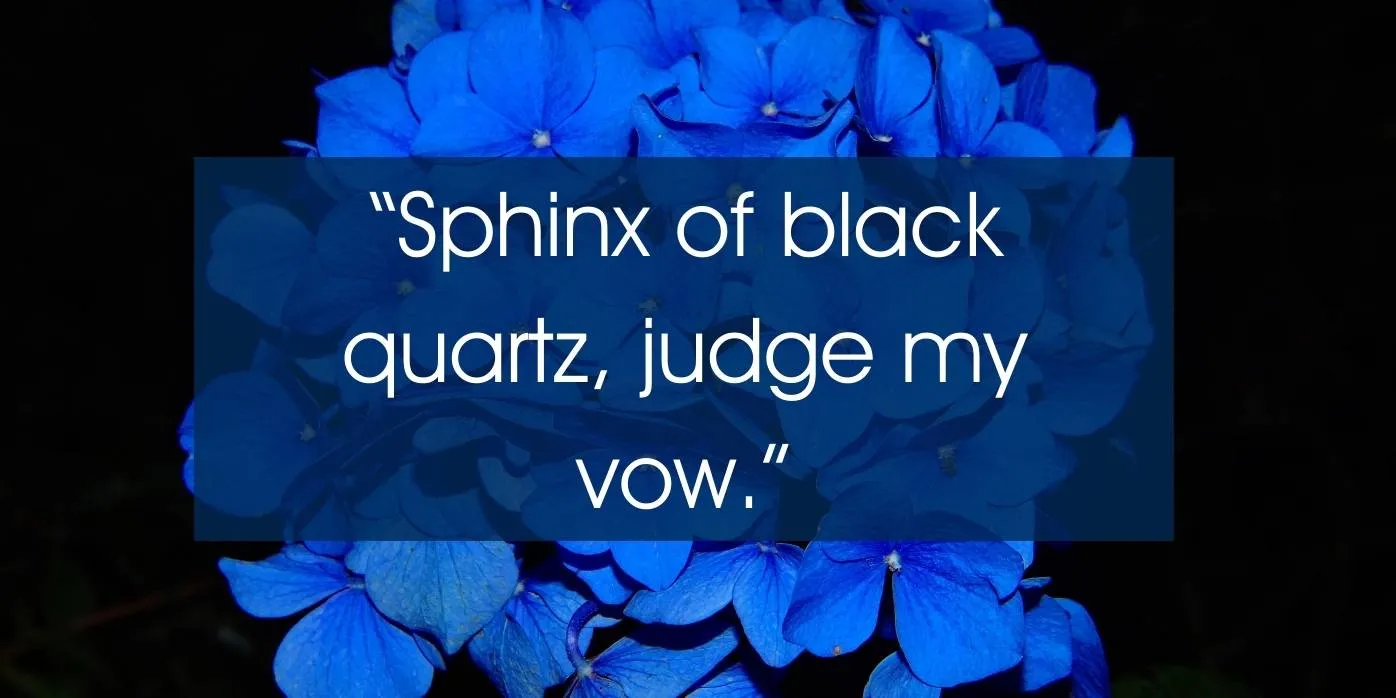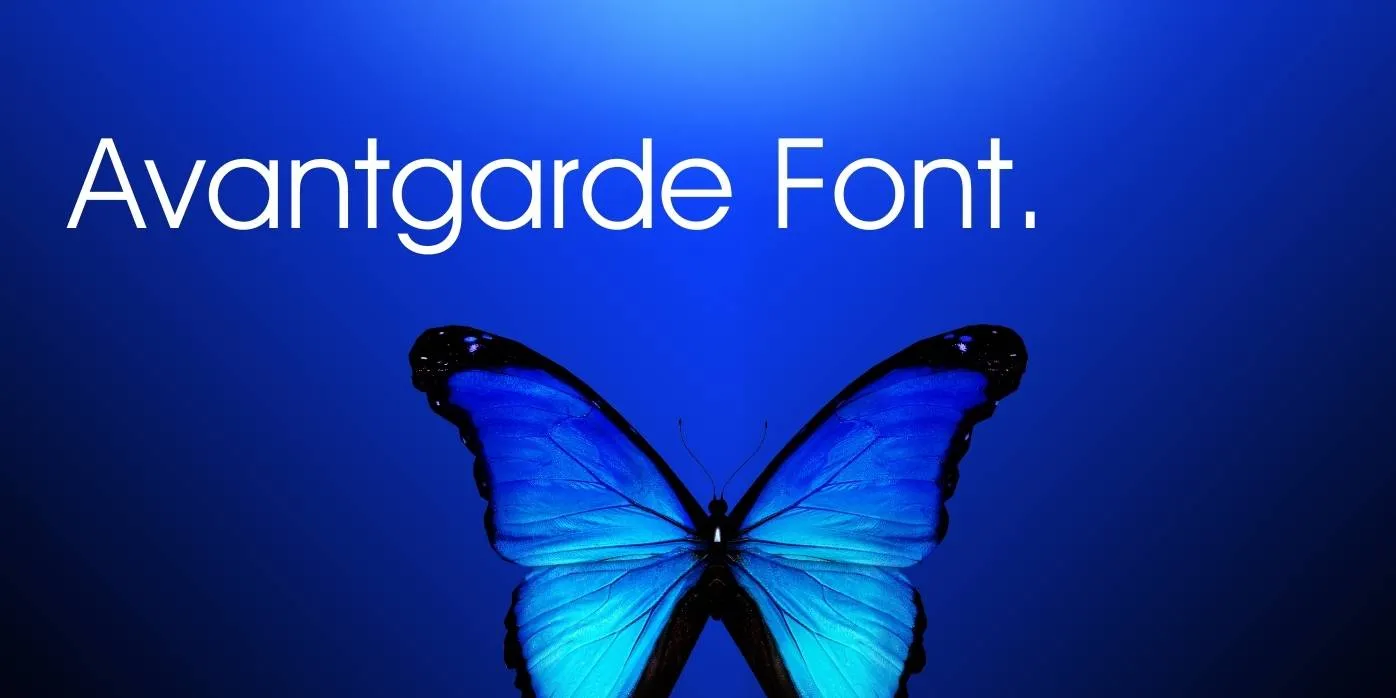
Avant Garde Font
Today, we are glad to present a most famous and astonishing font family that was known by the name Avant Garde Font. This clean font belongs to the Sans-Serif font family. This classic font family was designed by the very hard work of two famous and intelligent manufacturers Herb Lubalin, and Tom Carnase. This awesome font family was used for the logo of the popular and famous newspaper Avant Garde magazine.
This classy font family is best for different software like Adobe, Canva, and others. Frequently this staggering font is suitable for display-type functions and projects. It is specified for the CSS family. For getting the same features as this attractive font you can use Exo 2 font that is similar to this typeface.
This cozy typeface provides the best lettering facility. Another good thing related to this font family is that this font comes in four different types of weights. These weights help in different designs and make your designs more attractive and Bold. Some of its popular and famous characters are Avant-Garde Book, Avant-Garde Medium, and avantGarde bold.